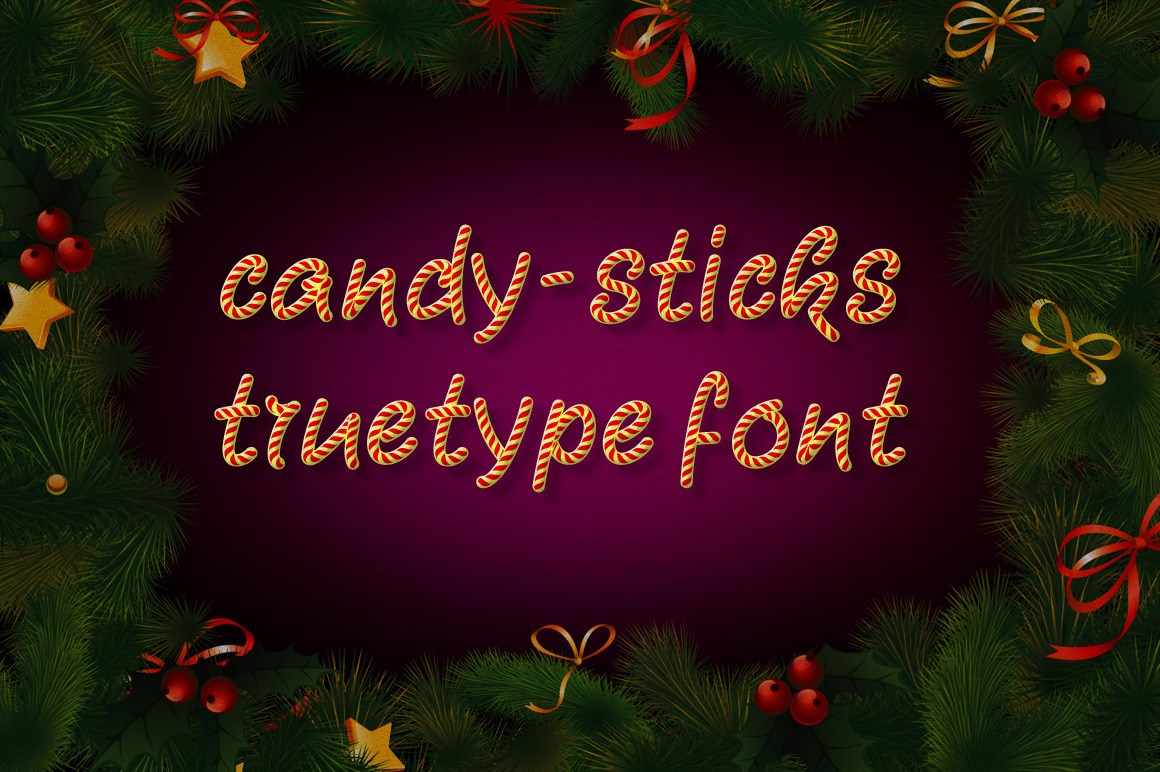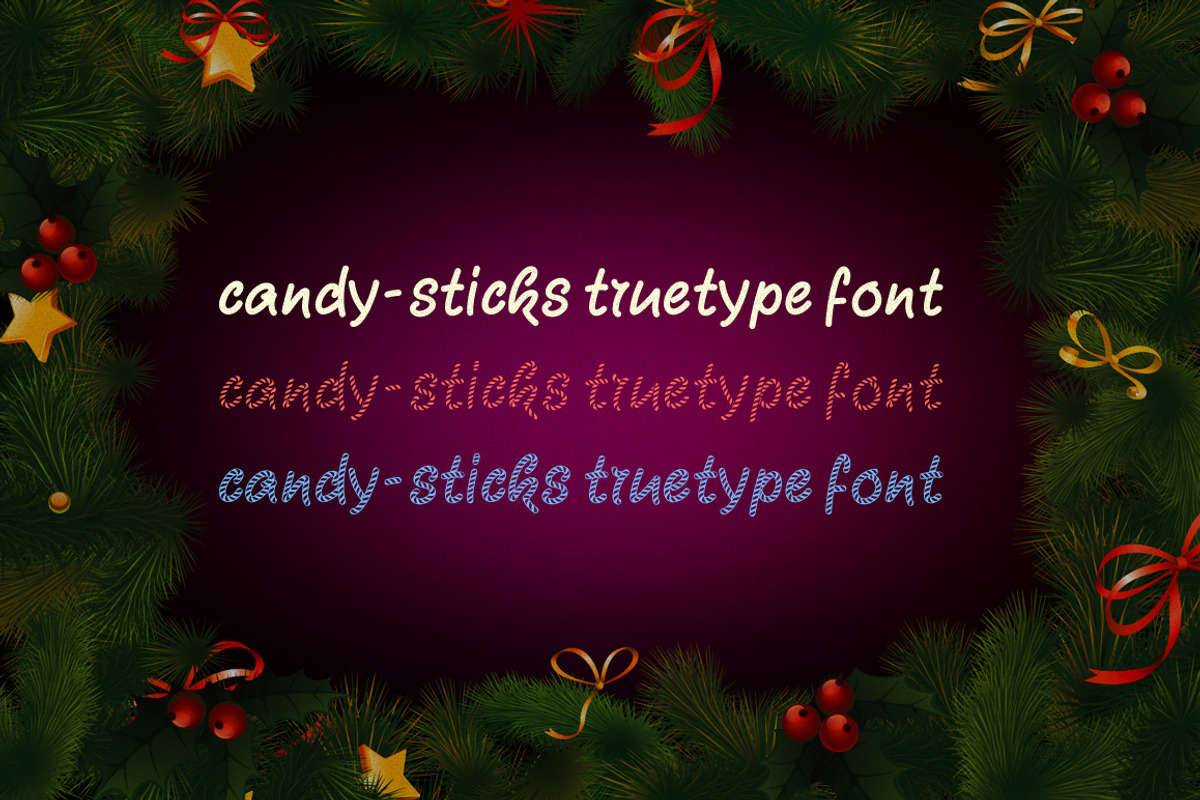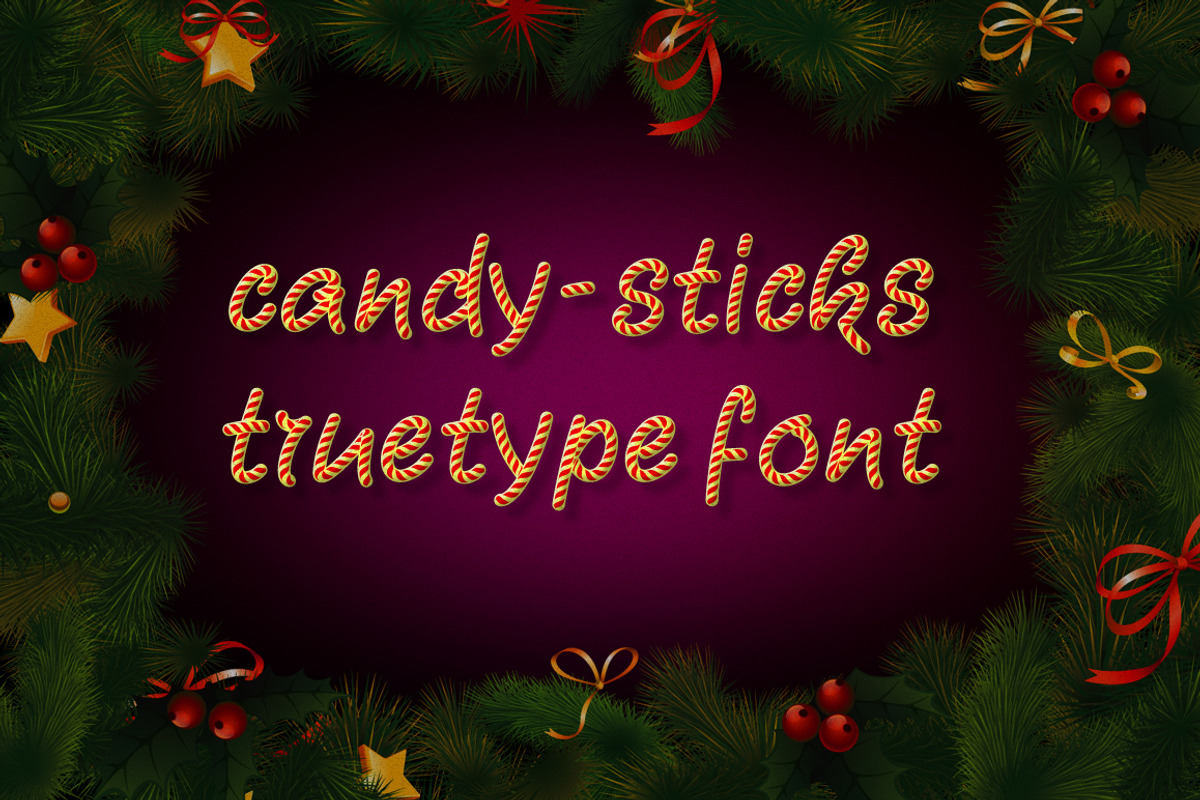
Candy-Sticks TrueType Font
Candy-Sticks Font is a set of simulated Christmas Candy-Sticks font, including Candy-Sticks Hollow.ttf, Candy-Sticks Pattern.ttf, Candy-Sticks Solid.ttf three font.